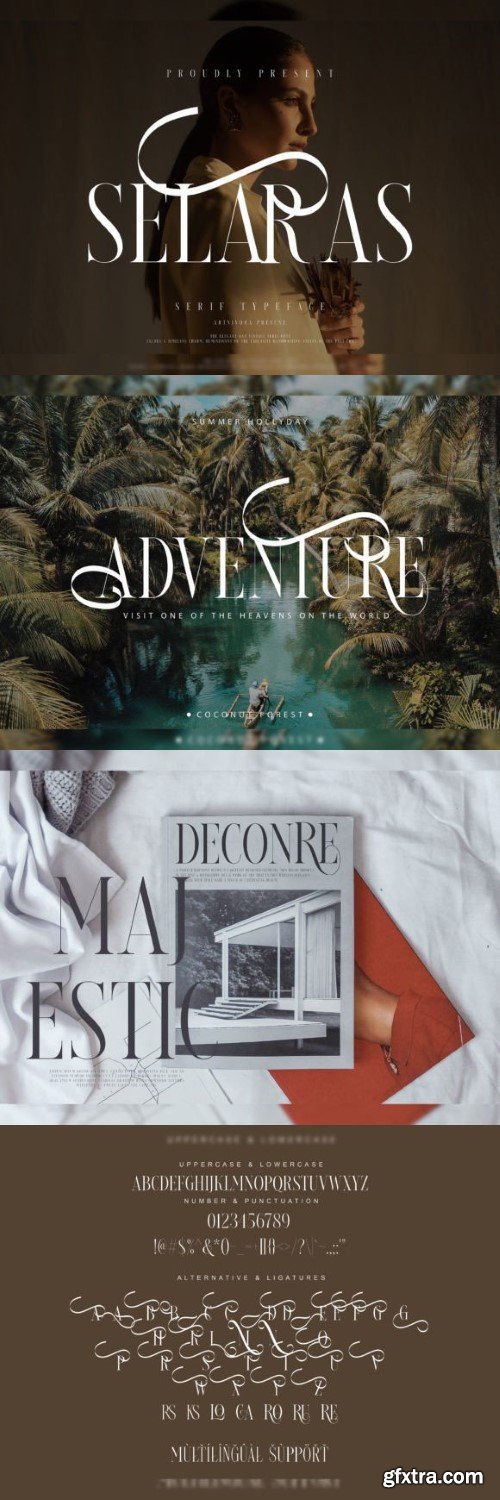
Selections Font
Selaras is a modern elegant font paired with decorative flourishes, that makes a classy aesthetic. Use it for invitations, branding, and more. This elegant serif font will add a touch of luxury and style to your design projects.